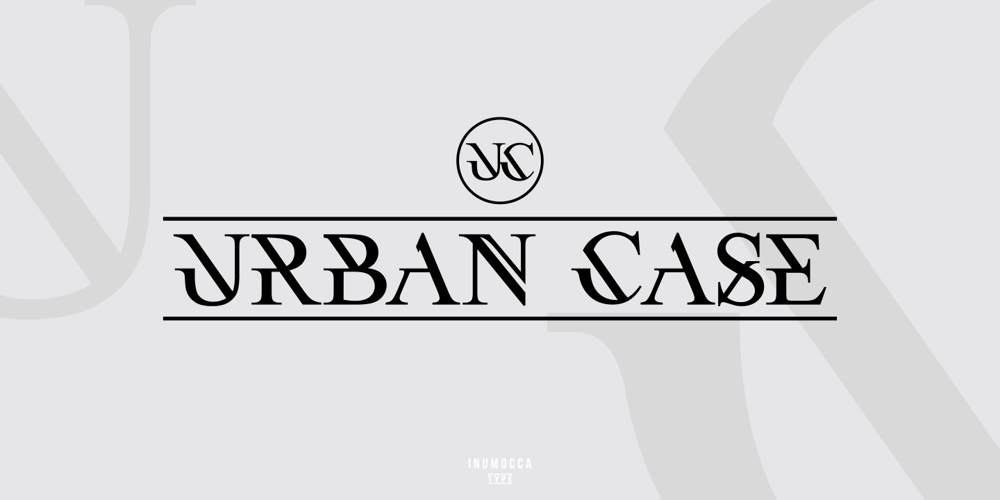
Urban Case
Urban Case font
Urban Case Font Family was designed by Inu Mocca and published by Inumocca. Urban Case contains 1 styles and family package options. URBAN CASE inspiration from the Urban People, Simple, Elegant, Classy, have a great different Style.great for your Logos, signature, promotion media, etc.unique glyph and deep touch.- Multilingual Characters Support- UPPERCASE- Lowercase- Numeric- Symbol- Punctuation Characterinumocca type Studio